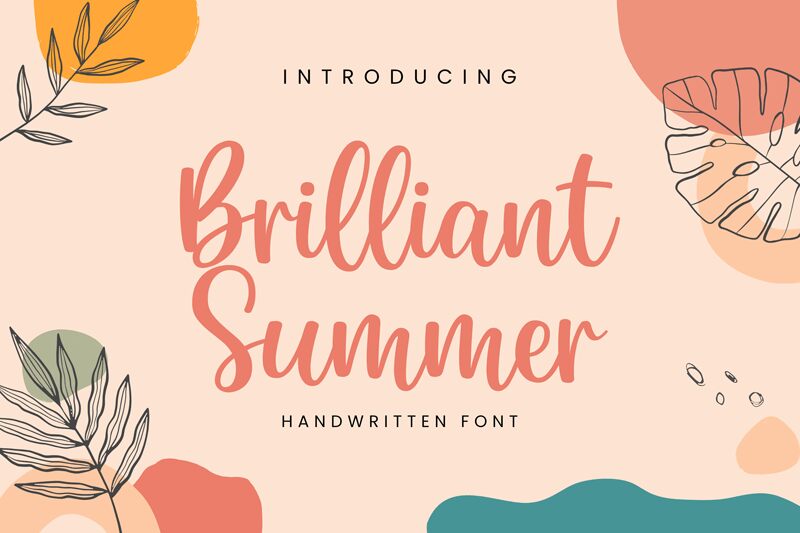
brilliantsummer
Brilliant Summer, crafted by Letterflow, is a captivating handwritten font that adds a touch of whimsy and elegance to any project. Its semi-light weight effortlessly balances legibility and charm, making it ideal for various creative ventures. Whether you're designing wedding invitations with a rustic twist, creating delicate logos for beauty and wellness brands, or curating dreamy social media posts for lifestyle influencers, Brilliant Summer will infuse your work with an enchanting aesthetic. Embrace this delightful typeface to unleash the true essence of summer in your designs and captivate your audience with its irresistible allure.